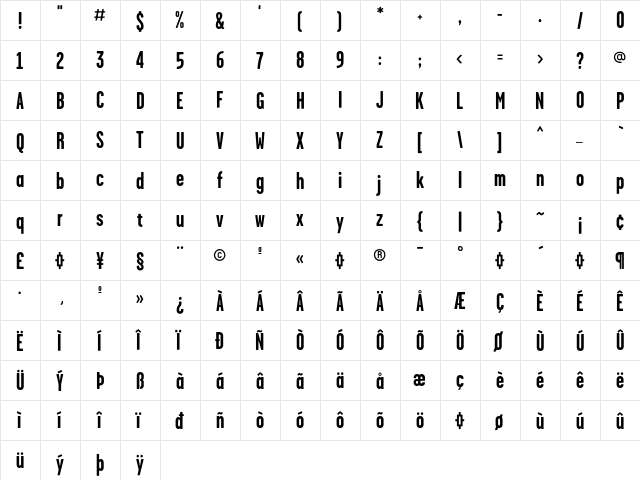
Garage GothicBold
Design Context for Garage Typeface
Garage takes a clean, functional approach — its unadorned letterforms prioritise legibility and work reliably across screen and print environments. Its bold stroke weight gives it real presence on the page.
A strong choice for UI design, app interfaces, bold signage, and corporate brand systems.
Font Pairing: Use Garage for headlines alongside a lighter-weight sans or serif for body copy to establish clear visual hierarchy.
Pro Tip: Pair Garage with a display or serif font for headlines — its neutral character makes it an excellent supporting player in complex typographic systems.